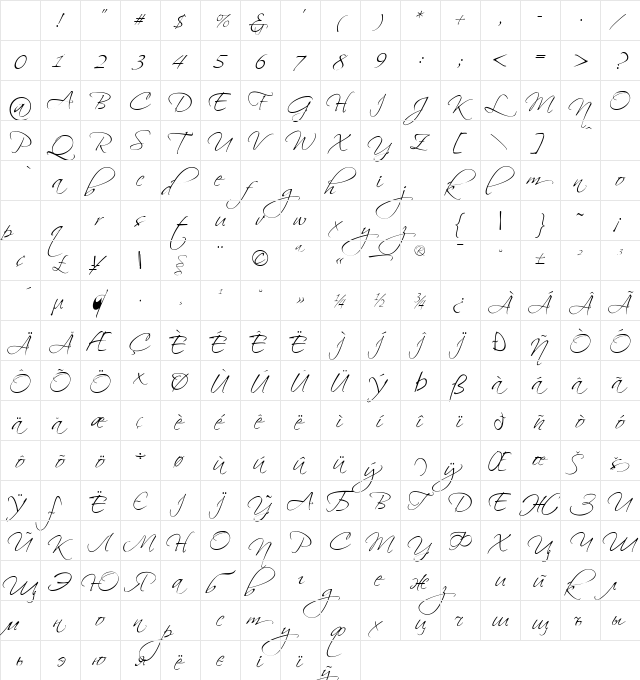
Complete Scriptorama Regular glyph index. Displaying only characters natively supported by Scriptorama Regular font.
Scriptorama flows with the natural rhythm of handwritten lettering, making it ideal for designs that call for warmth and personal expression.
Font Pairing: Combine Scriptorama with a simple geometric sans for maximum contrast - the tension between flowing curves and clean structure is a classic typographic pairing.
Pro Tip: Use Scriptorama for short runs of text - names, titles, or taglines. Extended body copy in script faces tires the eye quickly.